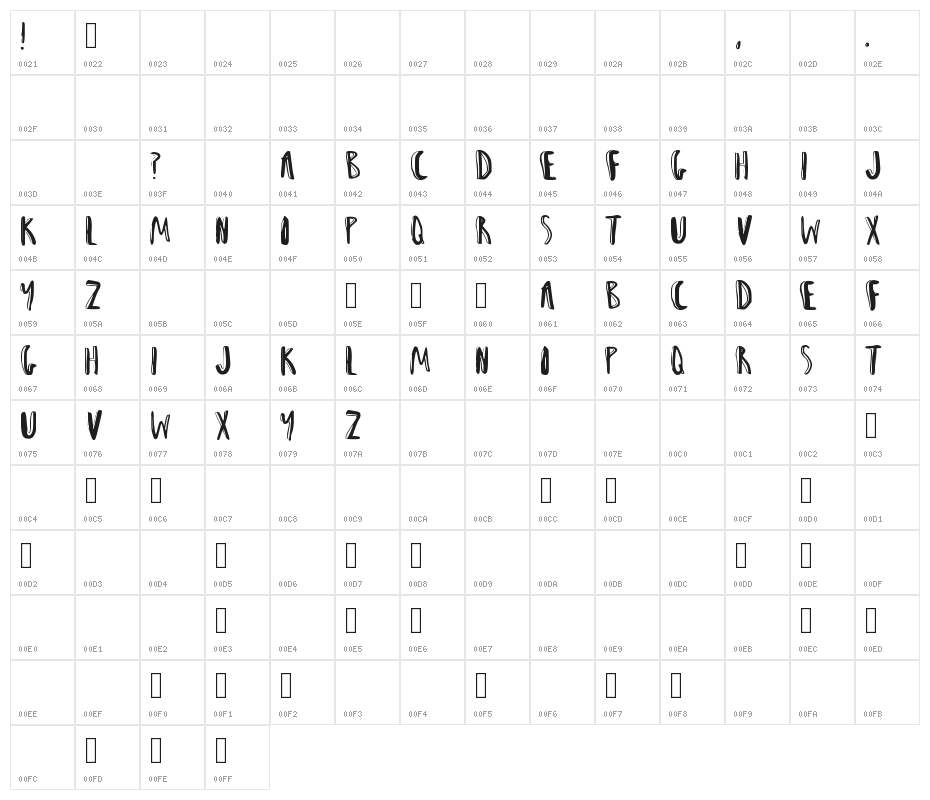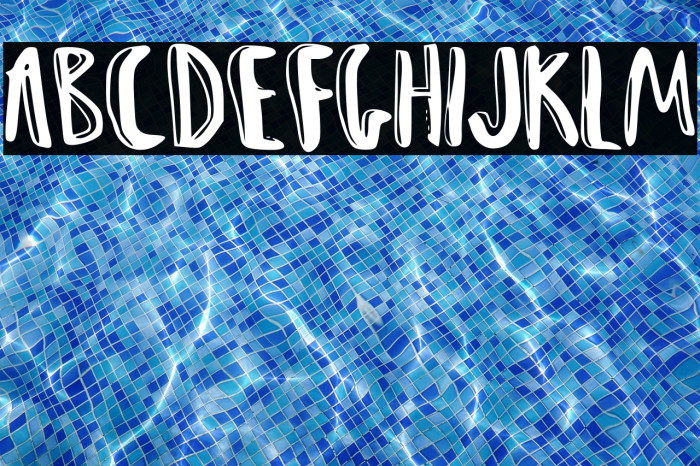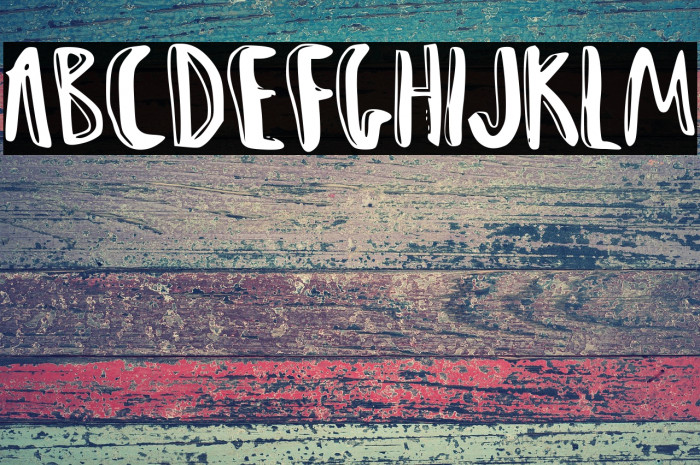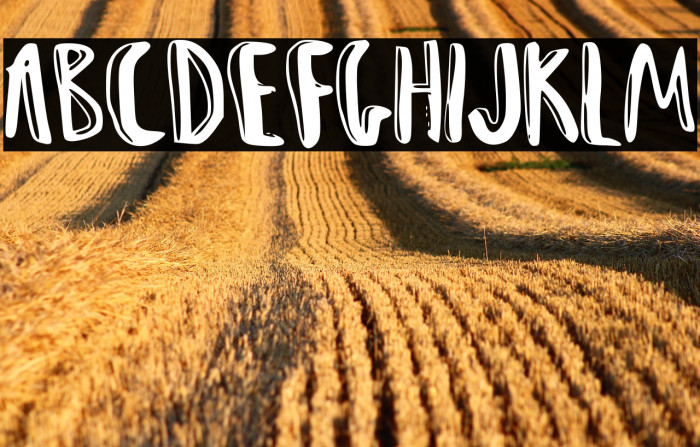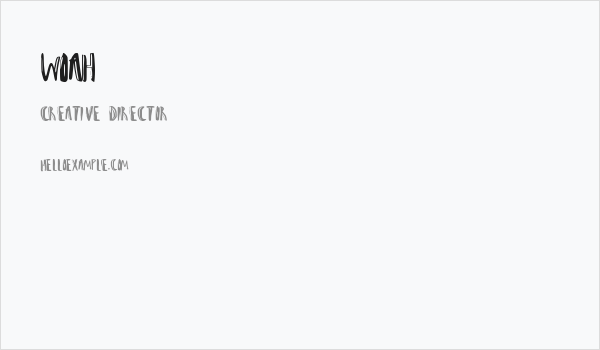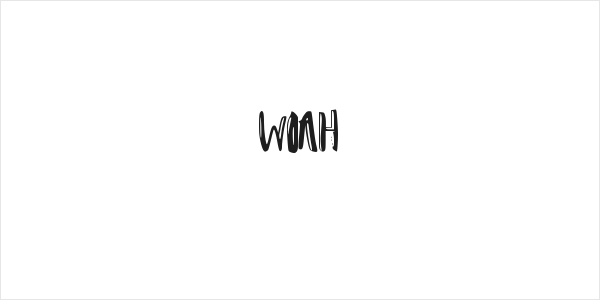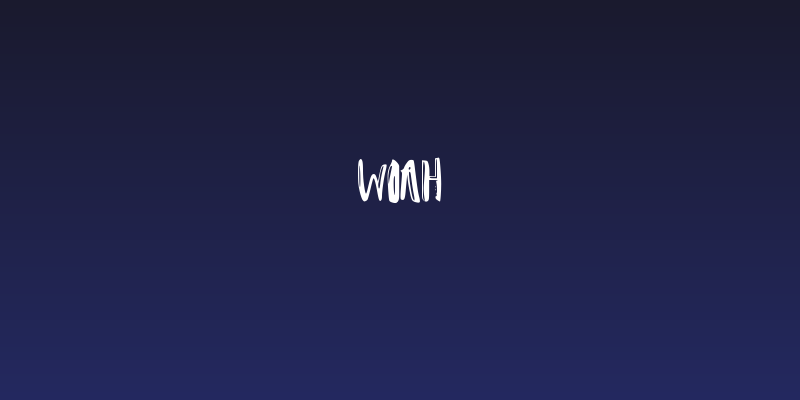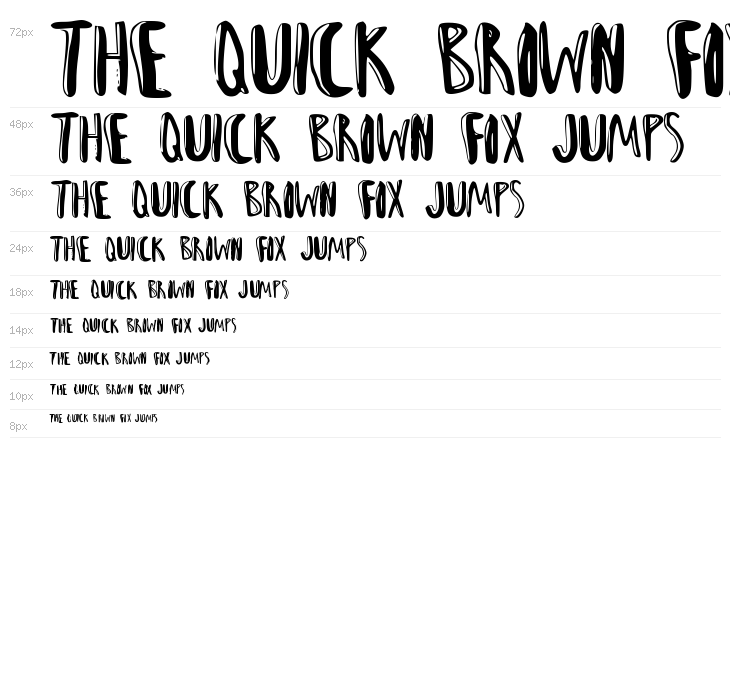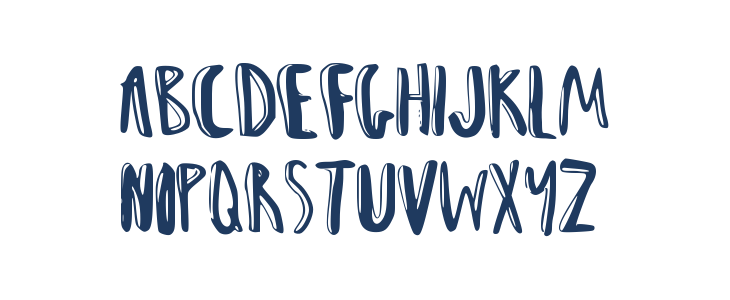
Woah Font
Woah Description
This font features a bold and playful style with exaggerated, uneven strokes that give it a hand-drawn appearance. The characters are highly stylized, with varying thicknesses and a sense of movement, making it ideal for creative and informal designs. The uppercase and lowercase letters maintain a consistent whimsical aesthetic, while the numbers and special characters complement the overall look. Its unique charm and artistic flair make it stand out, perfect for projects that require a touch of personality and fun.
| Overall Style | Playful, Artistic |
| Proposed Projects | Ideal for children's books, playful branding, creative posters, and artistic invitations. |